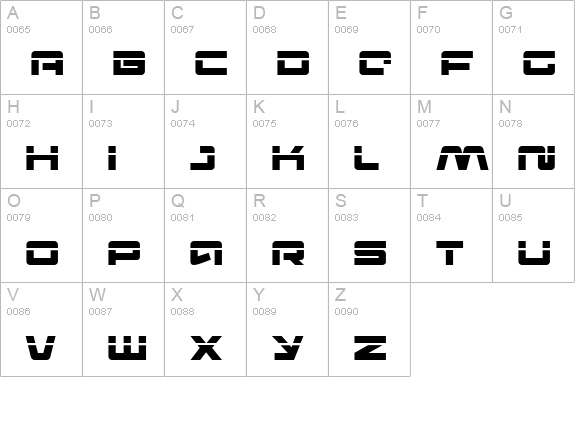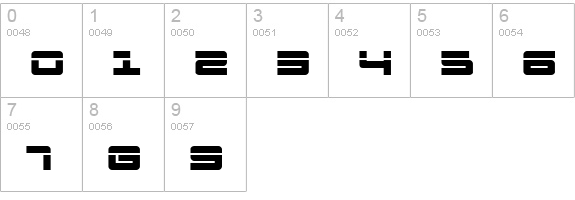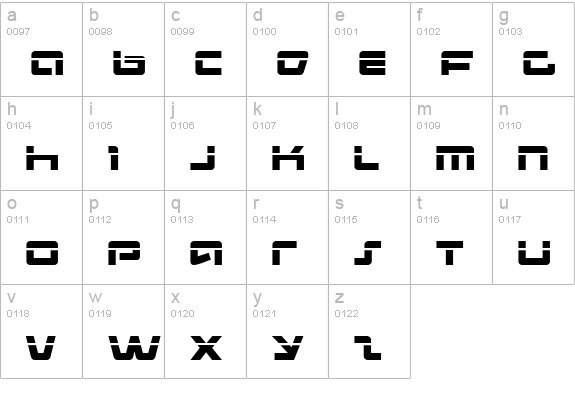
The Pulse Rifle Laser font is a futuristic and dynamic typeface that exudes energy and modernity. Featuring sleek lines and sharp edges, this font is perfect for projects that require a cutting-edge and high-tech aesthetic. The Pulse Rifle Laser font is versatile and can be used for a variety of design applications, from digital interfaces to advertising materials. What's even better is that the Pulse Rifle Laser font is available for free download at FontsMarket.com! You can easily access this bold and eye-catching font to enhance your projects and make a lasting impression. Don't miss out on the opportunity to add the Pulse Rifle Laser font to your collection and take your designs to the next level. Download it now and let your creativity soar!